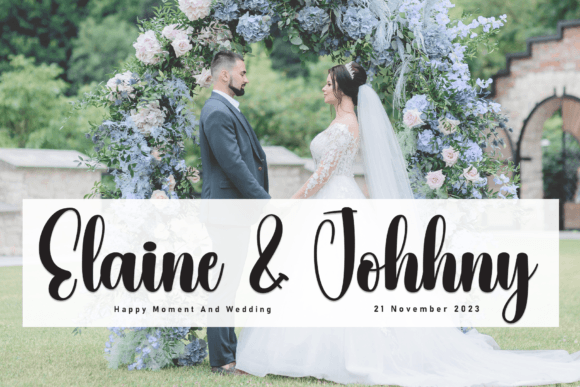
Church Font
Church is a sweet and friendly handwritten font. Its natural and unique style makes it incredibly fitting to a large pool of designs. The only limit is your imagination!